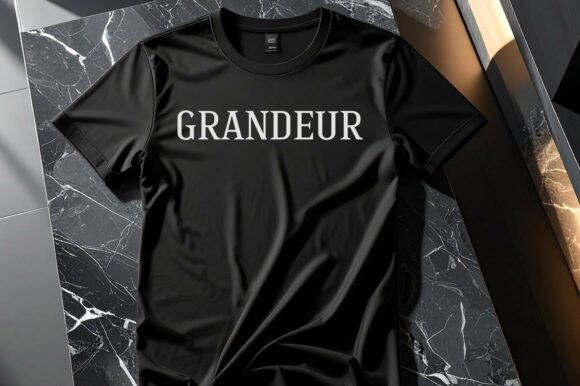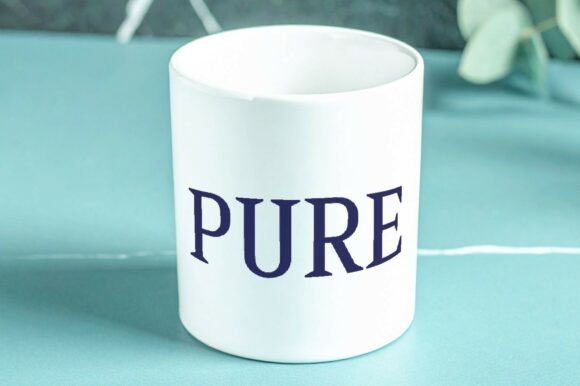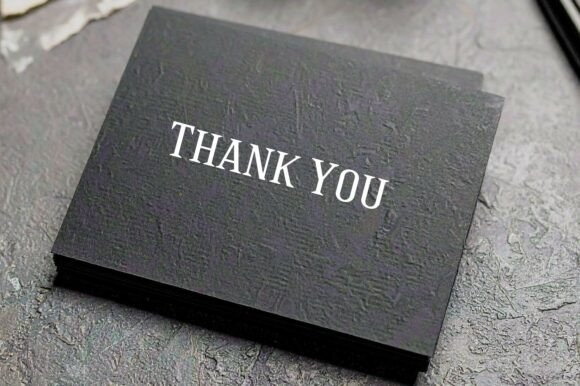
The Elegance of Luxury Typography: Unveiling the Baron Damai Font
Imagine yourself standing in front of a grand, historic mansion, surrounded by opulent details and lavish furnishings. As you gaze at the intricately designed invitations, business cards, or labels, you’re struck by the sense of sophistication and refinement that radiates from every letterform. This is the essence of the Baron Damai Font, a classic serif typeface that exudes luxury, tradition, and refined taste.
As a designer, you’re constantly seeking the perfect tool to convey your message and leave a lasting impression. The Baron Damai Font is an exceptional choice for high-end branding, editorial design, and formal invitations, thanks to its elegant blend of strong serifs and beautifully proportioned letterforms. Its high contrast between thick and thin strokes adds to its grandeur, making it a valuable asset in your design arsenal.
Key Features of Baron Damai Font
- Font Family: Baron Damai Font is a premium font family designed to provide a unique and elegant look for various designs and applications.
- Character Set: Includes a wide range of characters, including uppercase and lowercase letters, numbers, and special characters, making it suitable for various languages.
- Unique Characteristics: Baron Damai Font features a unique blend of modern and traditional elements, making it an ideal choice for designs that require a touch of elegance and sophistication.
Baron Damai Font Review
Overall, I think Baron Damai is a great addition to any designer’s toolkit. ✨ Its elegant and refined feel makes it perfect for high-end branding and corporate materials. The font’s intricate details and subtle flair add a level of sophistication that’s hard to achieve with more generic fonts.
One of the standout features of Baron Damai is its versatility. ✨ It works well for both serif and sans-serif designs, making it a great choice for projects that require a mix of styles. The font’s clean lines and modern aesthetic also make it a great choice for digital applications, such as mobile apps and websites.
- Elegant and refined feel
- Intricate details and subtle flair
- Versatility for serif and sans-serif designs
- Clean lines and modern aesthetic
- May be difficult to read in certain contexts
I’d highly recommend Baron Damai for designers looking to add a touch of sophistication to their projects. While it may have some limitations, its unique charm and versatility make it a valuable addition to any designer’s toolkit.
Getting the Most Out of the Baron Damai Font
To get the most out of the Baron Damai font, use it for:
1. Luxury branding and packaging design.
2. High-end product labels and tags.
3. Elegant invitations and event materials.
The Baron Damai font is commonly used for:
1. Luxury fashion brands.
2. High-end jewelry and watch designs.
3. Upscale restaurant and hotel branding.
Alternatives to Baron Damai Font
Lato Font is a sans-serif typeface that is highly legible and versatile. It is suitable for both body text and headings. Lato Font is more modern and clean compared to Baron Damai Font, making it ideal for contemporary designs.
2. Merriweather Font
Merriweather Font is a classic serif typeface that is perfect for body text and long-form content. It is more traditional and elegant compared to Baron Damai Font, making it ideal for book covers, magazines, and other print materials.